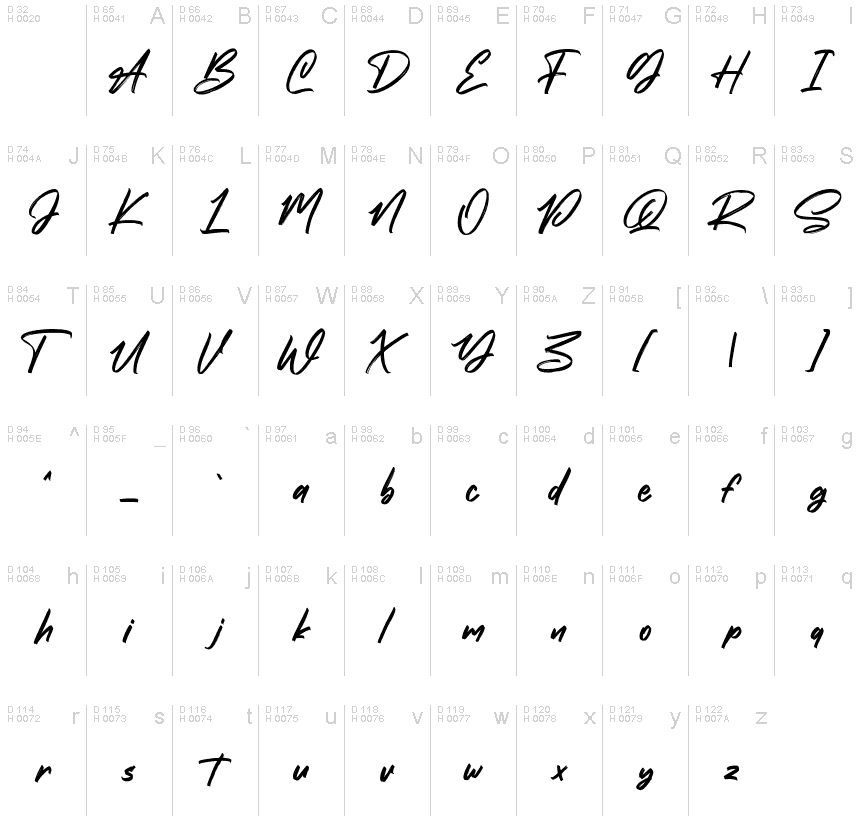
Fattalsfort Free Regular
Fattalsfort is a light brush font designed by MaulanaCreative. It's perfect for creating eye-catching titles, signage, logos and more. Fattalsfort is also great for everything from social media posts to wedding stationery and more.